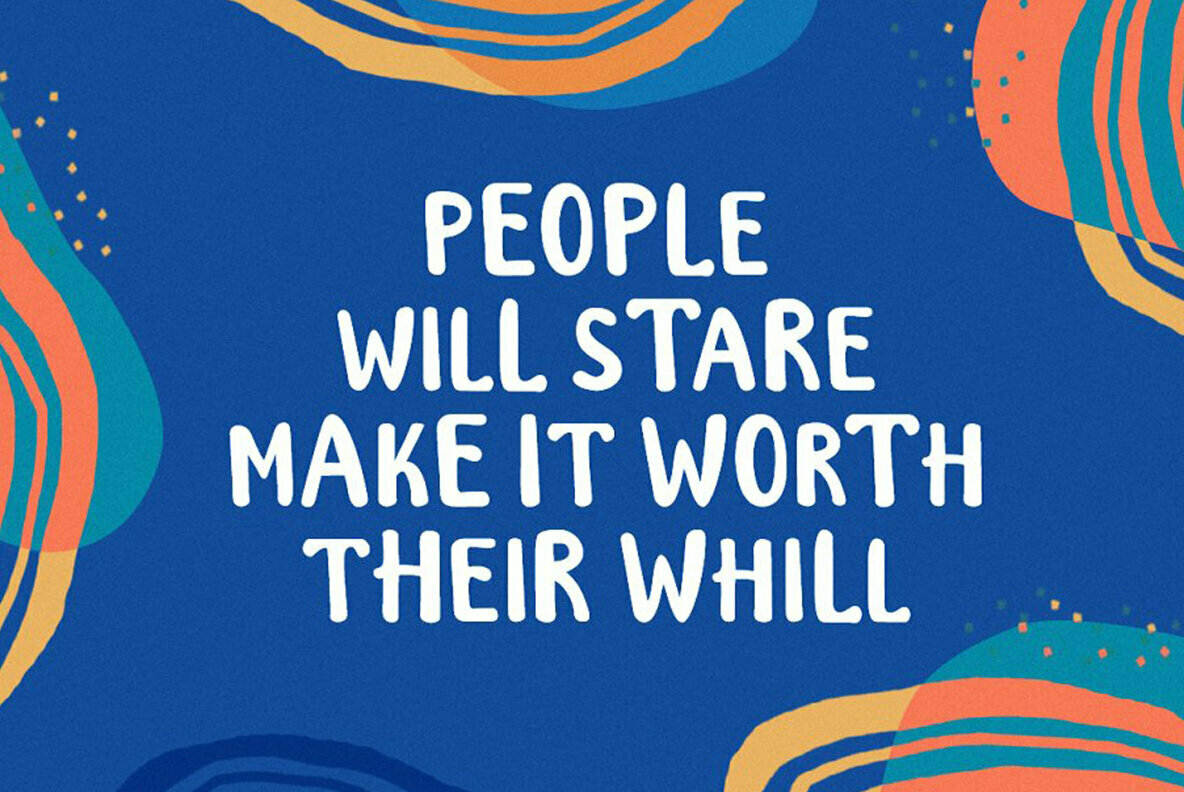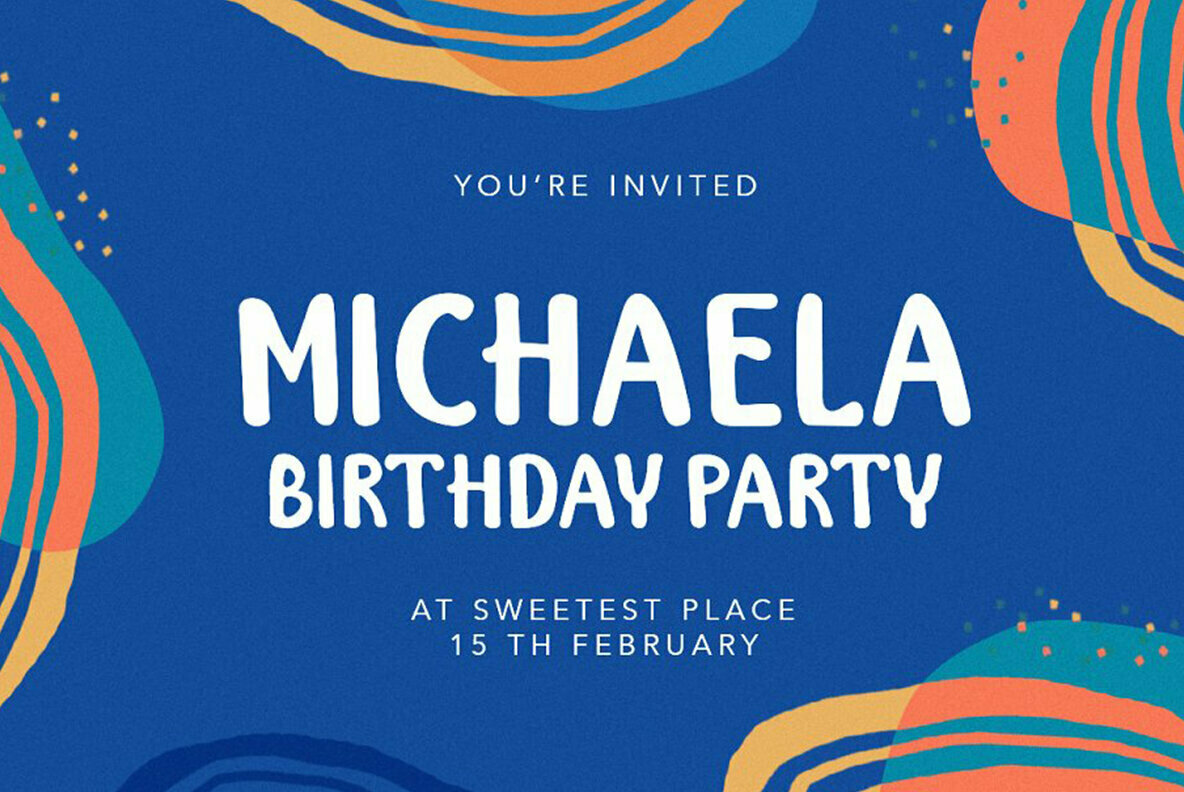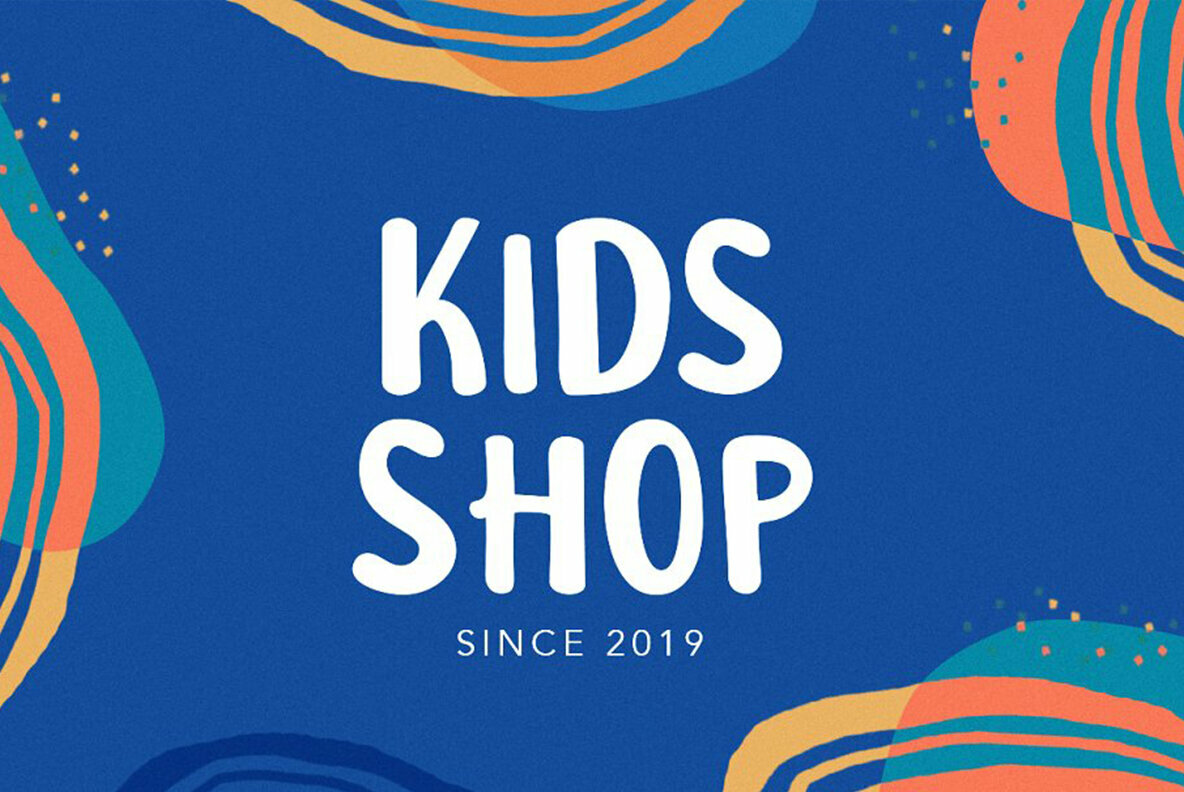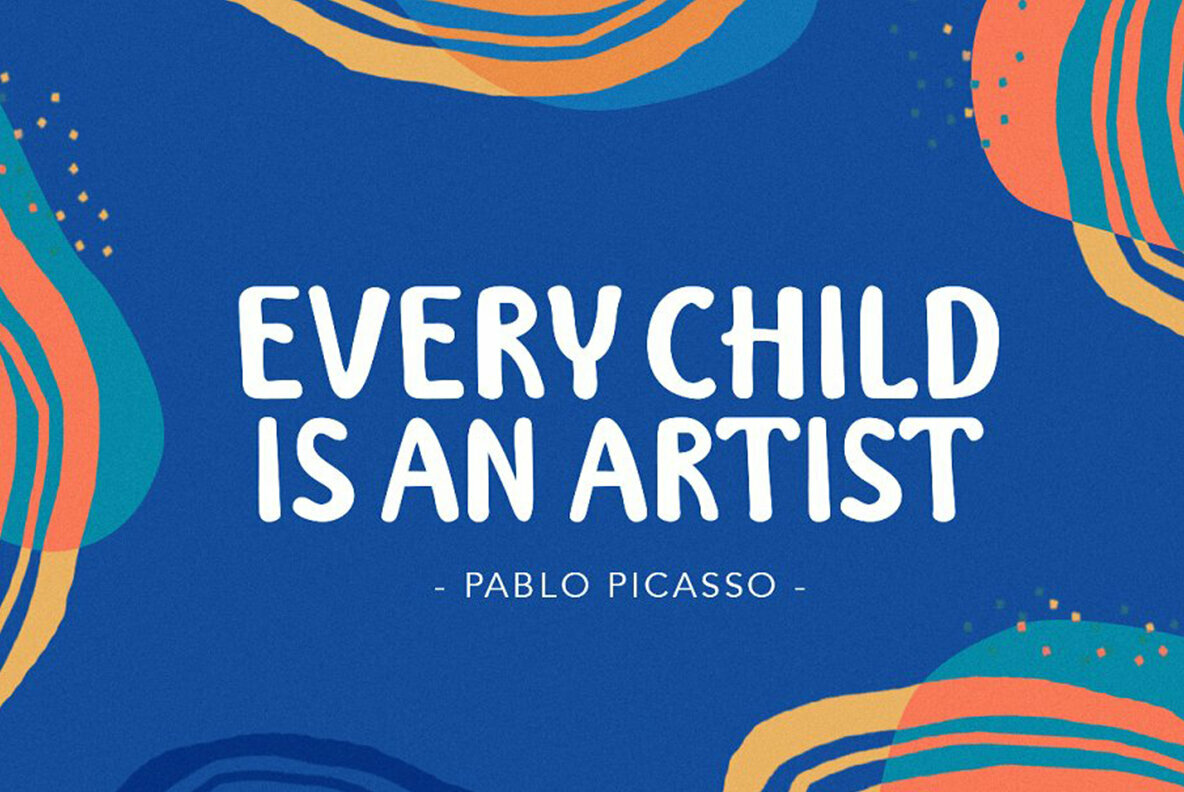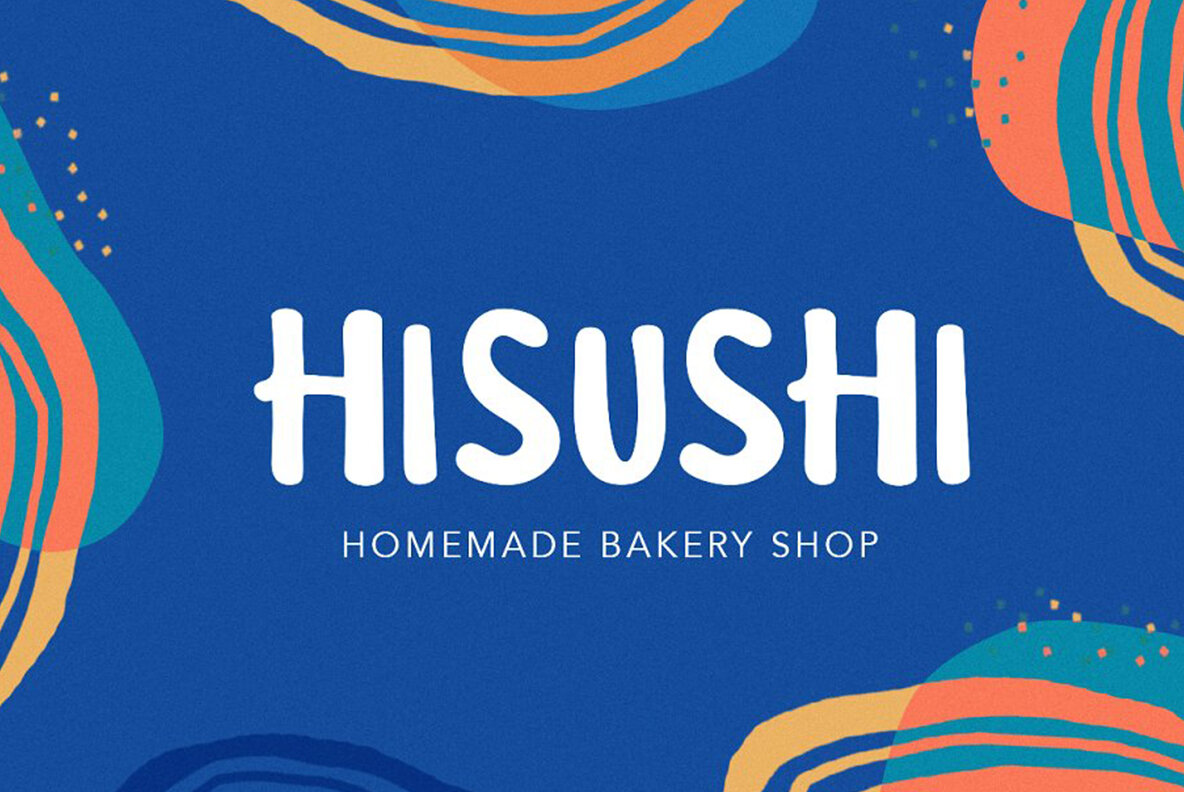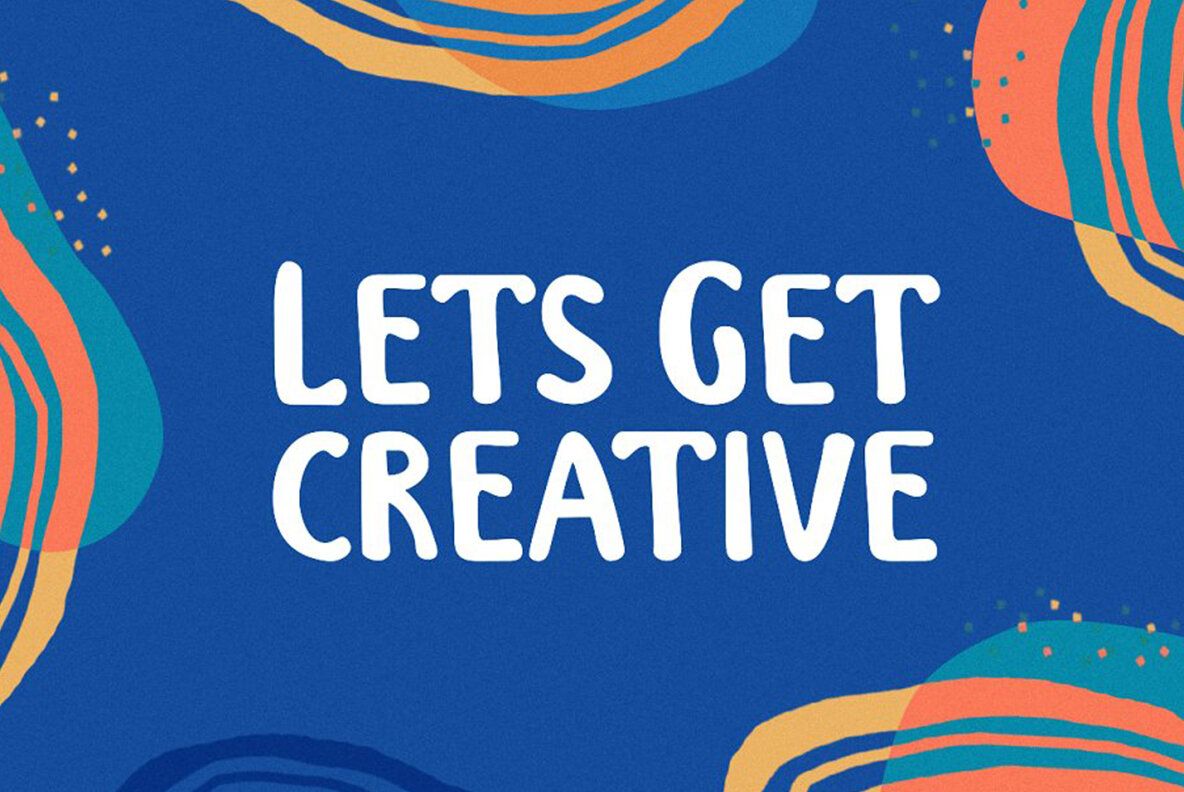
Lunarie Font
Lunarie
Lunarie is a handcrafted font. decorative, fun and friendly. Can used for various purposes. Such as the title, logo, quotes, invitations, signage, posters, etc. International support for most Western Languages is included.